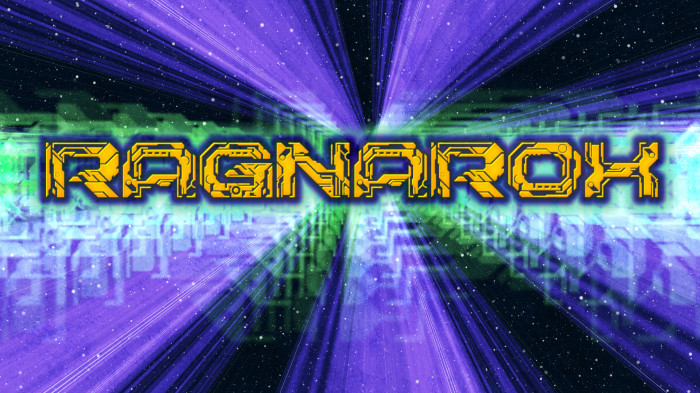
Ragnarox
by geneus1
042718. Thor Ragnarok is the funniest of all the Marvel films. I can watch it over and over.  There is so much respect for Jack Kirby’s art style all over land of Sakaar. Growing up I never really appreciated Kirby’s artwork, as I leaned toward more graphically detailed artists. It wasn’t until much later that I recognized his great contributions to the entire language of visual expression in sequential art. I’m sorry I didn’t create this for the opening, but here it is for Avengers Infinity War.
@geneus1 - As today is the release date of a certain Marvel blockbuster (#19 - Infinity War), I was curious to see if you were going to release another movie logo.  Instead, you manage to surprise us with three (!): Avengero, Panthera, & Ragnarox.  Congratulations on the accomplishments, Gene.
WHOA, DUDE! That is a spectacular font, love it! 10/10 & now a favorite!
Come on man... How on eath do you fontstruct something like this.
I'm speechlesss!
10/10
A work of Art!
Wow. Looks like molten metal, on a circuit board that overheated. A most impressive arrangement of filled and empty spaces inside an outline. So complex, it must have taken ages to make. Congratulations on the well deserved TP
Impressive detail!
Dang! You have a habit of making great fonts, don't you? :)